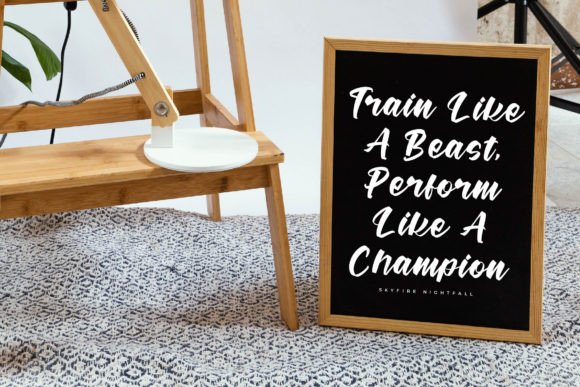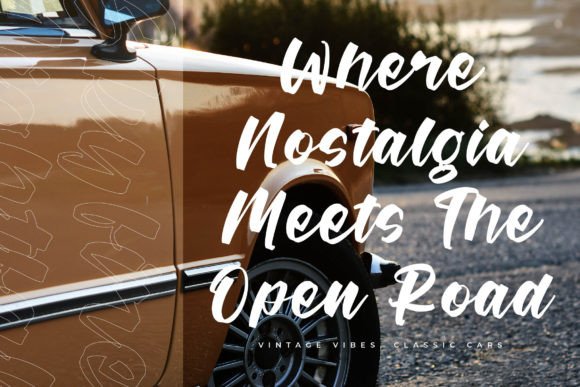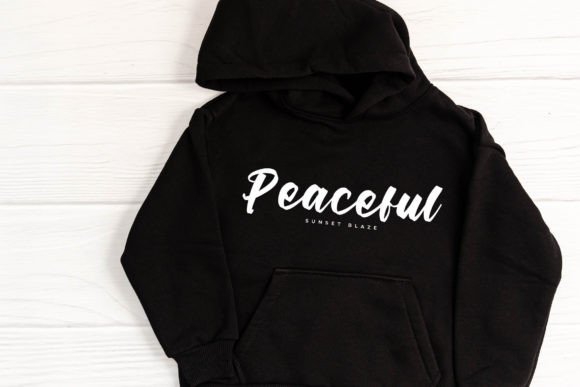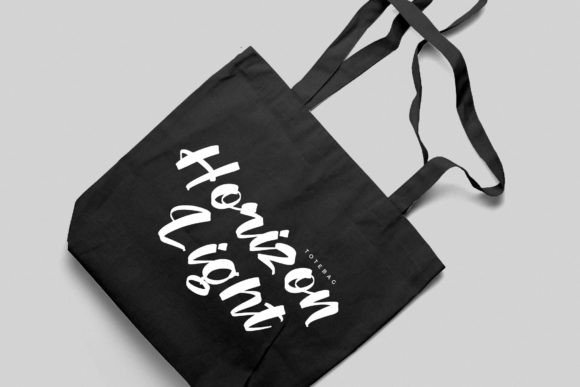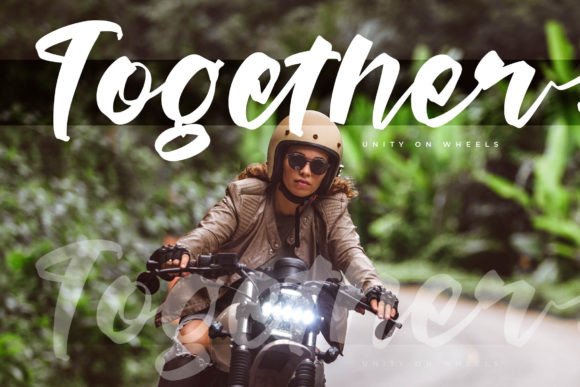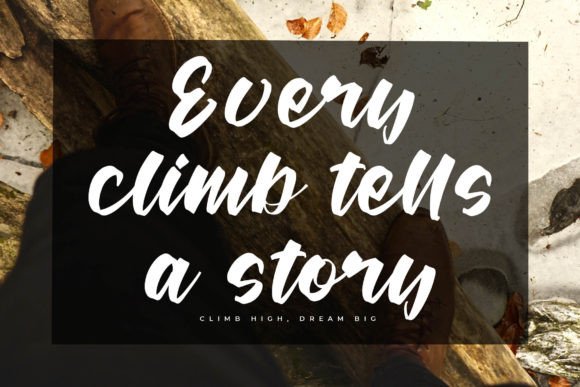
Introduction to Skyfire Nightfall Font
Have you ever been scrolling through your social media feed, and a beautiful logo or branding design catches your eye? Maybe it’s the elegant script, the luxurious feel, or the way it makes you feel like you’re part of something exclusive. For designers, creating that perfect look is a challenge, but with the right tools, it’s achievable. In this article, we’ll be exploring the Skyfire Nightfall Font, a high-quality script font that’s perfect for any luxury project.
This font, from the talented designers at Letterena, is a game-changer for designers looking to elevate their creative projects. With its unique handwritten style and luxurious feel, the Skyfire Nightfall Font is ideal for logos, branding projects, and anything that requires a touch of sophistication.
Key Features of Skyfire Nightfall Font
- High-quality, free font for creative projects and designs, perfect for those looking for a unique design resource.
- Features a bold, modern design with a transparent background, allowing for easy customization and versatility.
- Includes a full character set, including uppercase and lowercase letters, numbers, and punctuation marks, making it a comprehensive design resource.
- Part of a larger font family, offering a range of styles and weights to suit different design needs and preferences.
Honest Review: Skyfire Nightfall Font
I recently had the chance to work with the Skyfire Nightfall Font, and I’m excited to share my thoughts on this design resource. First off, the font is absolutely stunning, and I love the dark, edgy vibe it gives to any creative project.
One of the things that really stands out about Skyfire Nightfall Font is its high quality. The font is crisp and clear, making it perfect for use in logos, branding, and other design applications where clarity is key.
Here are some things that work well with Skyfire Nightfall Font:
- ✨ Unique design style that sets it apart from other fonts
- ✨ Highly customizable for use in a variety of creative projects
Overall, I’m really impressed with Skyfire Nightfall Font, and I think it’s a great addition to any designer’s toolkit. With its high quality and unique design style, it’s a great choice for anyone looking to add some edge to their creative project.
Introduction to Skyfire Nightfall Font
The Skyfire Nightfall Font is a high-quality design resource ideal for creative projects. Its sleek and modern design makes it perfect for a variety of applications, from branding to digital art.
Use the Skyfire Nightfall Font in conjunction with other design elements to create a cohesive and professional look. Experiment with different font sizes and styles to add visual interest to your designs.